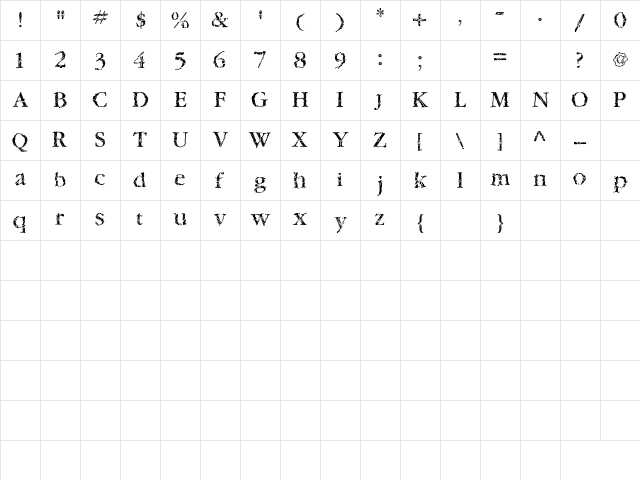
TwyliteZone Book
TwyliteZone Family
Design Context for TwyliteZone
TwyliteZone is a composed and adaptable typeface that performs quietly and consistently across a wide range of design contexts.